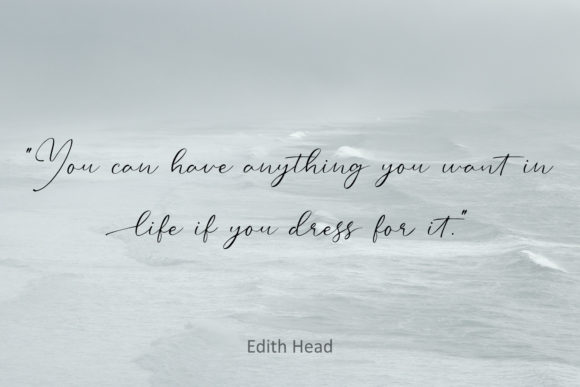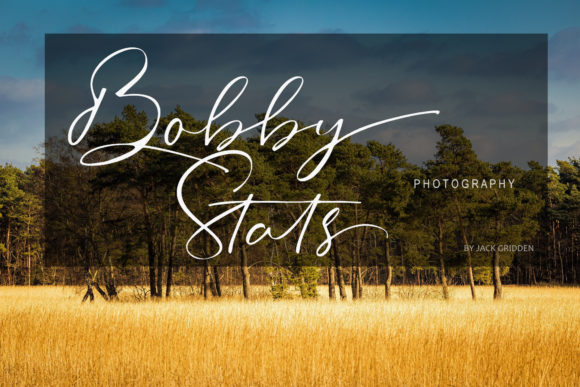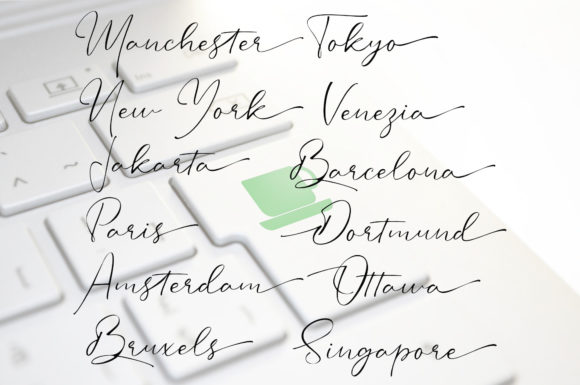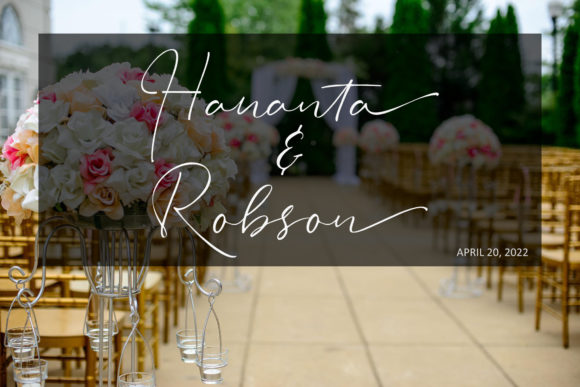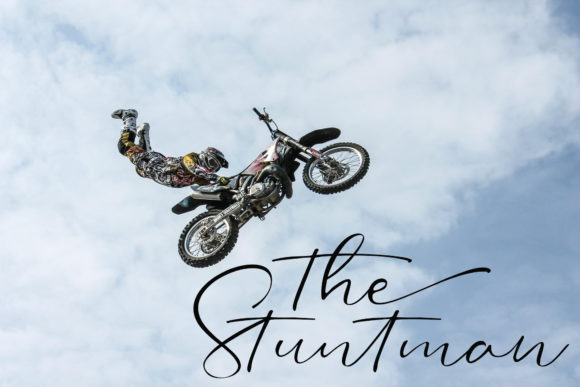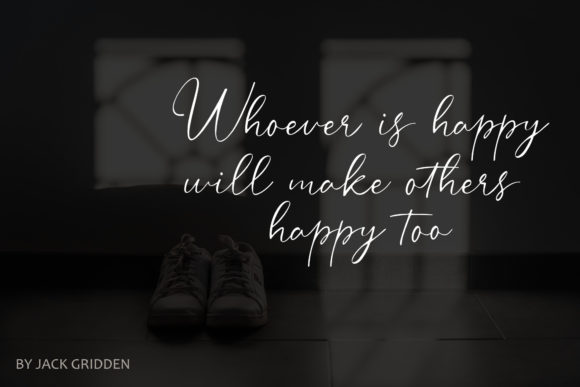
Daventer Font: Elevate Your Creativity with Elegance
In the world of typography, a font can make all the difference in transforming a simple design into a masterpiece. For those seeking a touch of elegance and magic in their creative projects, the Daventer Font is an exceptional choice. This beautifully crafted script font is designed to bring a sense of sophistication and charm to any design, making it perfect for a wide range of applications, from Instagram posts to DIY projects.
The Essence of Daventer Font
Daventer is not just another script font; it’s a carefully curated collection of elegant letters, swashes, and glyphs that come together to create a truly unique and artistic look. Its magical touch is evident in the way it flows across the page, making it an instant eye-catcher. Whether you’re a designer looking for the perfect font for your next client’s project or a crafter seeking to add a personal touch to your DIY endeavors, Daventer is sure to exceed your expectations.
One of the standout features of the Daventer Font is its versatility. It’s incredibly adaptable, making it suitable for a myriad of uses. Here are just a few ways you can utilize this fantastic font:
- Instagram and Social Media: Stand out on social media platforms with beautifully crafted posts and stories. Daventer’s elegant script is sure to garner attention and leave a lasting impression.
- DIY Projects: Add a touch of personal elegance to your craft projects. Whether it’s handmade cards, party invitations, or personalized gifts, Daventer can elevate your DIY creations to a new level of artistry.
- Graphic Design: For professional designers, Daventer offers a wide range of possibilities, from branding and logos to packaging and advertising. Its unique charm can help set your designs apart in a crowded marketplace.
Understanding the needs of designers and crafters, Daventer Font comes with PUA (Private Use Area) encoding. This feature allows for easy access to all the glyphs and swashes, making it simple to customize and enhance your designs. With PUA encoding, you can:
- Easily access and insert a variety of glyphs and swashes into your projects.
- Experiment with different combinations to find the perfect look for your design.
- Save time and increase productivity, as you can work more efficiently with the font’s extensive features.
Why Choose Daventer Font?
With so many fonts available, why should Daventer be your go-to choice? Here are a few compelling reasons:
- Elegance: Daventer exudes elegance and sophistication, making it perfect for projects where you want to make a refined statement.
- Versatility: Its adaptability means you can use it across a wide range of projects, from digital designs to handmade crafts.
- Accessibility: PUA encoding ensures that you can easily access and utilize the font’s full range of features.
- Uniqueness: Daventer’s magical script stands out in a sea of fonts, ensuring your designs are memorable and distinctive.
Daventer Font is more than just a script font; it’s a tool for creativity, a means to transform your ideas into art. Its elegant design, versatility, and ease of use make it an invaluable asset for designers and crafters alike. Whether you’re looking to enhance your professional projects or add a personal touch to your DIY creations, Daventer is sure to inspire and elevate your work. So, why settle for ordinary when you can create something truly magical with Daventer Font?